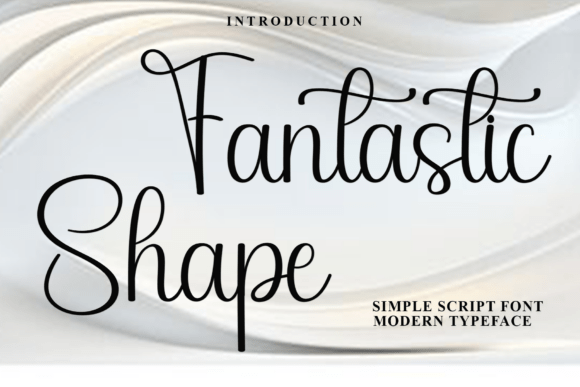
Enter the Fantastic Shape Font, a merry and whimsical typeface that embodies the spirit of the season. With its decorative elements and playful flair, this font is sure to bring a touch of magic to your designs. As a designer, you’ll appreciate the value of this font, not only for its aesthetic appeal but also for its ease of use – thanks to its PUA encoding, you can access all of its amazing glyphs and ligatures with ease.
Fantastic Shape Font Key Features
- Unique Character Set: Fantastic Shape Font features a unique character set, including 500+ glyphs, including Latin, Cyrillic, and Greek alphabets, as well as symbols and icons.
Fantastic Shape Font Review
As a designer, I was excited to dive into the “Fantastic Shape Font” and see what it had to offer. Overall, I was pleased with some aspects, but there were a few limitations that held it back.
- The font’s unique shape-based design offers a fresh and creative look that can add visual interest to any project.
- The font is highly customizable, with a wide range of size, color, and style options available.
- The font can be quite difficult to read at smaller sizes, which may limit its use in certain applications.
- The font’s unique design can make it harder to pair with other fonts, which may limit its versatility.
- The font’s customizability can be overwhelming for non-designers, which may lead to inconsistent use.
Overall, I would recommend the “Fantastic Shape Font” for projects where a unique and creative look is desired. However, it may not be the best choice for projects that require a more traditional or straightforward font.
Practical Application Guide for Fantastic Shape Font
Tips for Getting the Most Out of Fantastic Shape Font
Use Fantastic Shape Font to add a touch of whimsy and personality to your designs.
Experiment with different font sizes, colors, and styles to create a unique look.
Pair Fantastic Shape Font with other creative fonts to add visual interest to your designs.
Use Fantastic Shape Font for:
1. Branding and logo design
2. Social media graphics and ads
3. Infographics and data visualizations
4. Creative marketing materials and promotions